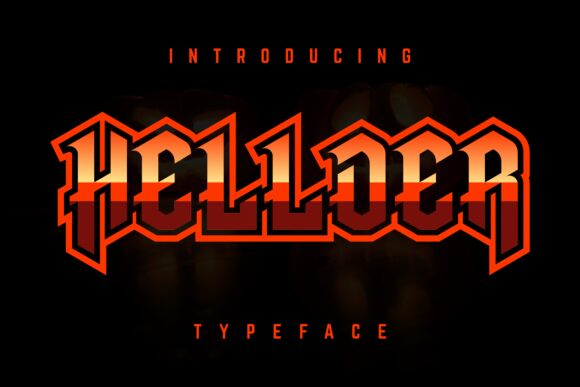
Hellder font by Albert Kalingga is a Gothic font with medieval inspiration and modern style. It features a condensed structure that adds elegance to its overall appearance and allows it to be ideally used in the least of spaces available. The element that makes it dramatic consists of the excessively stretched elongated letters pushed to the design’s undeniable borders.
A strong presence and historical influence inspire this free font demonstrated through the blackletter typeface, making it perfect for magazine headlines, poster designs, logo presentations, book covers, game titles, movie posters typography, banner designs on social media or printed mediums or restaurant menu listings.